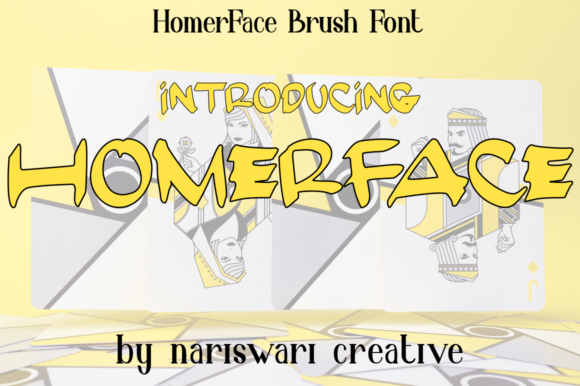
The Ultimate Game-Changer for Your Next Design Project
We’ve all been there – staring at a blank canvas, struggling to find the perfect font to bring our idea to life. The frustration is real, but what if I told you there’s a font that can turn your creative block into a masterpiece? Meet the HomerFace Font, a fun, neat, urban styled display font that’s about to become your new best friend.
Whether you’re a seasoned designer or just starting out, the HomerFace Font has the potential to elevate any creation. Its versatility makes it perfect for a wide range of projects, from graphic design and branding to digital art and social media graphics. With the HomerFace Font, you’ll be able to add a touch of personality and style to your work, setting you apart from the crowd and making your designs truly unforgettable.
- Unique Characteristics: HomerFace font features a unique blend of playful and elegant elements, making it suitable for a wide range of design applications, from casual to formal.
HomerFace Font Review
I was excited to dive into the world of HomerFace Font and see what it had to offer. Here’s my honest review:
- Unique design: The HomerFace Font has a quirky, playful feel that’s sure to stand out in any design project.
- High-quality vectors: The font’s vectors are crisp and clean, making it perfect for digital use.
- Expressive: HomerFace Font is great for adding a touch of whimsy to headlines or titles.
- Limited legibility: At smaller font sizes, the HomerFace Font can become difficult to read, especially in serif-heavy text.
- Limited character set: The font’s character set is relatively small, which may limit its use in certain projects.
- Not ideal for body text: Due to its playful nature, HomerFace Font may not be the best choice for large blocks of body text.
Overall, I’d say the HomerFace Font is a fun, quirky addition to any design project, but it’s not without its limitations. Use it wisely and with caution, and it’ll be a great asset in your design arsenal!
To get the most out of the HomerFace font, use it for playful, casual designs or projects that require a fun, cartoon-like feel. Experiment with different font sizes and styles to create visual interest.
HomerFace font is ideal for:
- Social media graphics
- Party invitations
- Playful advertisements
- Children’s educational materials
Alternatives to HomerFace Font
1. Comic Sans MS
Comic Sans MS is a sans-serif font known for its playful and casual feel. It’s often used in informal documents, presentations, and websites where a friendly tone is desired. When to use: Newsletters, blogs, and social media platforms. Comparison: While Comic Sans MS has a similar playful vibe to HomerFace Font, it’s more traditional and less quirky.
Pacifico is a modern script font that conveys a sense of elegance and sophistication. It’s ideal for creative projects, branding, and advertising materials. When to use: Fashion magazines, luxury brands, and high-end websites. Comparison: Pacifico has a more refined and polished look compared to HomerFace Font, making it suitable for more formal applications.